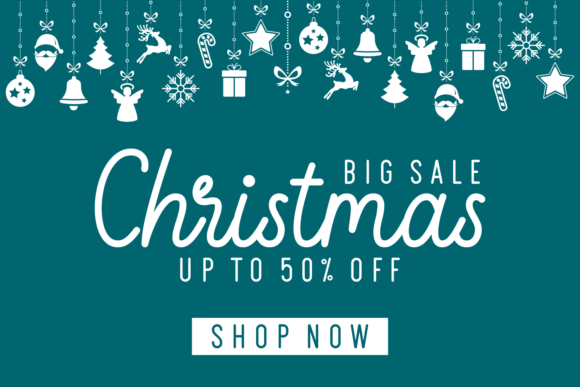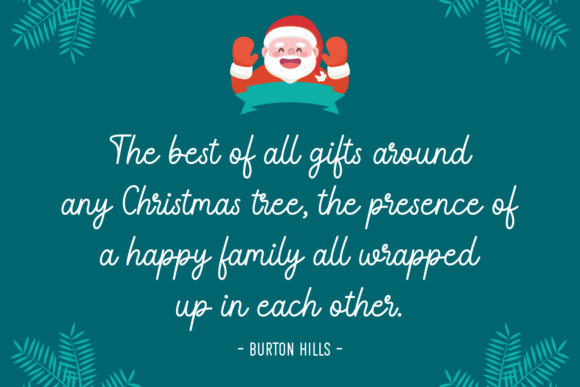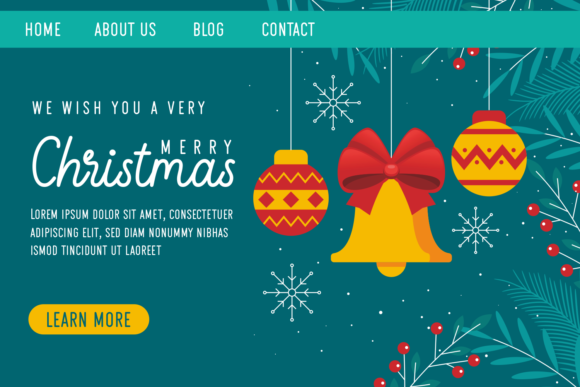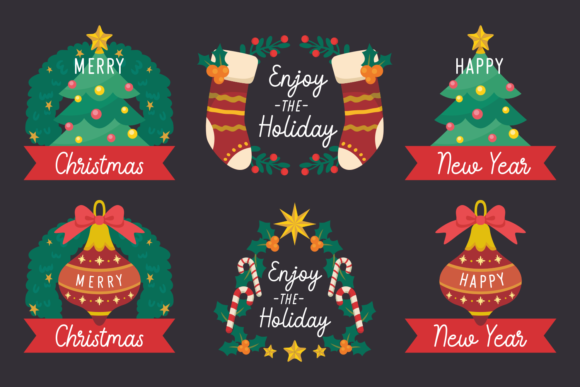
Introducing Christmas Monocute Font: A Timeless Vintage Script for Your Holiday Designs
As the holiday season approaches, designers and crafters are on the lookout for the perfect typography to add a touch of festive flair to their projects. If you’re searching for a font that exudes elegance, sophistication, and a hint of nostalgia, look no further than Christmas Monocute Font. This beautiful, well-balanced, and vintage-styled script font is sure to become your go-to choice for fashion branding, editorial designs, and holiday-themed creations.
The Charm of Christmas Monocute Font
Christmas Monocute Font is defined by its smooth curves, which give it a luxurious and refined feel. The font’s vintage style is reminiscent of classic script typography, evoking memories of bygone eras and high-end fashion magazines. Its unique character and charm make it perfect for designers who want to add a touch of personality to their work.
Key Features of Christmas Monocute Font
- Beautifully crafted curves: Christmas Monocute Font features smooth, flowing curves that give it a sophisticated and elegant feel.
- Vintage style: The font’s classic script style is perfect for designers who want to add a touch of nostalgia to their work.
- Well-balanced: The font is carefully crafted to ensure that each letter and word is perfectly balanced, making it easy to read and visually appealing.
- Perfect for fashion branding: Christmas Monocute Font is ideal for fashion designers who want to add a touch of luxury and sophistication to their branding.
- Suitable for editorial designs: The font’s classic style and elegant curves make it perfect for editorial designs, such as magazine articles, blog posts, and more.
Why Choose Christmas Monocute Font?
With so many fonts available, why choose Christmas Monocute Font? Here are just a few reasons why this font stands out from the rest:
- Unique character: Christmas Monocute Font has a unique character that sets it apart from other fonts. Its vintage style and smooth curves make it a standout choice for designers.
- Versatile: The font is versatile and can be used for a wide range of projects, from fashion branding to editorial designs.
- Elegant and sophisticated: Christmas Monocute Font exudes elegance and sophistication, making it perfect for designers who want to add a touch of luxury to their work.
How to Use Christmas Monocute Font in Your Designs
Using Christmas Monocute Font in your designs is easy. Here are a few tips to get you started:
- Pair it with bold fonts: Pair Christmas Monocute Font with bold fonts to create a striking contrast and add visual interest to your designs.
- Use it for headings: The font’s elegant curves and vintage style make it perfect for headings and titles.
- Add it to your branding: Use Christmas Monocute Font as part of your branding to add a touch of luxury and sophistication.
Christmas Monocute Font is a beautiful, well-balanced, and vintage-styled script font that is perfect for designers and crafters who want to add a touch of elegance and sophistication to their holiday designs. With its smooth curves, unique character, and versatile style, this font is sure to become your go-to choice for fashion branding, editorial designs, and holiday-themed creations. So why wait? Add Christmas Monocute Font to your projects today and experience the magic of this timeless typography.
Whether you’re a designer, crafter, or DIY enthusiast, Christmas Monocute Font is a must-have addition to your typography collection. So go ahead, get creative, and make this holiday season one to remember with Christmas Monocute Font.